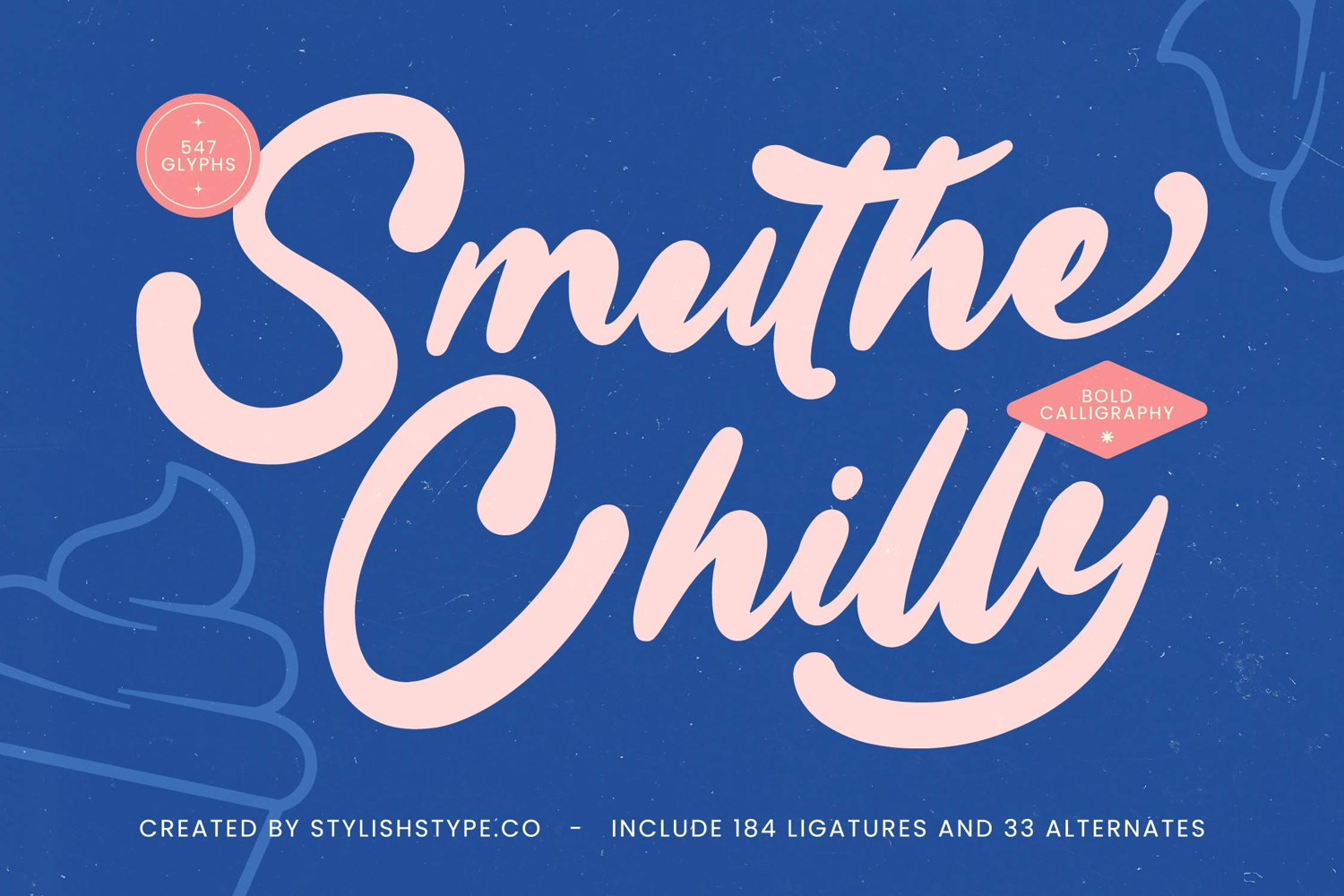
Smuthe Chilly - Bold Calligraphy Font
Smuthe Chilly Italic
Smuthe Chilly
Smuthe Chilly - Bold Calligraphy Font
Elevate your designs with the expressive charm of Font Smuthe Chilly - Bold Calligraphy Font Script. This dynamic script typeface exudes a captivating elegance, blending the classic allure of calligraphy with a modern, bold presence. Its effortlessly flowing letterforms and generous curves make it an instant focal point, ensuring your message is both memorable and stylish in any creative endeavor.
Crafted for remarkable impact, Font Smuthe Chilly - Bold Calligraphy Font Script offers exceptional typographic versatility. With an impressive 547 glyphs, including 184 ligatures and 33 alternates, designers can achieve truly unique results and seamless, smooth connections that mimic authentic hand-lettering. This rich feature set ensures creative freedom and a personalized touch for every project.
Unlock unparalleled global appeal for your projects. With its extensive multilingual support, Font Smuthe Chilly - Bold Calligraphy Font Script adapts seamlessly across global markets, making it incredibly versatile for international projects. Ensure your message resonates universally with this thoughtfully inclusive and professionally designed script font.
Font Smuthe Chilly - Bold Calligraphy Font Script is the perfect choice for creating memorable brands. It shines brightly in luxury branding, distinctive packaging, elegant wedding invitations, sophisticated editorial design, and engaging social media graphics. Embrace its inherent warmth and expressiveness to craft truly impactful designs that leave a lasting impression and captivate your audience.